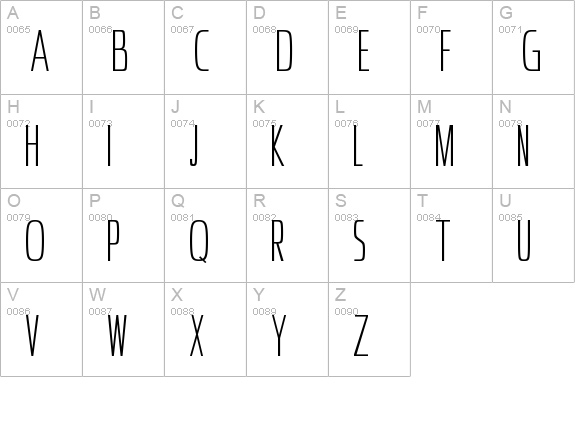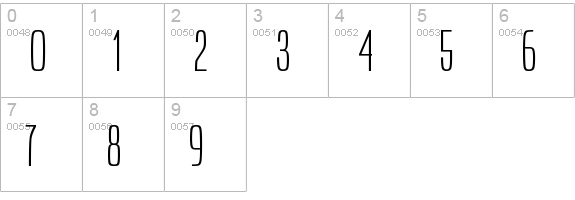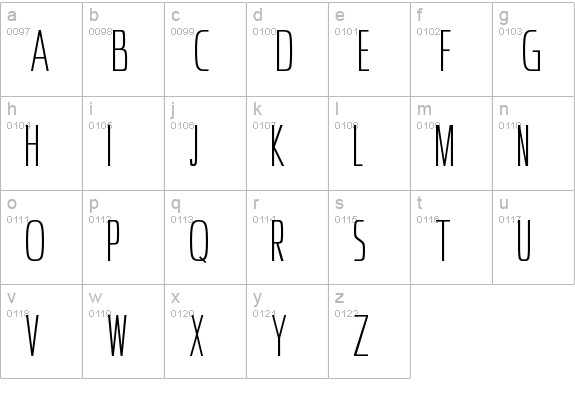
Ultrathins Font Details
Ultrathins is a donationware font in the General > Sans-Serif category, designed by Darrell Flood. It has been downloaded 232 times and is available for Windows, Mac and Linux.
Ultrathins font is a sleek and modern typeface that effortlessly combines elegance with a minimalist aesthetic. With its ultra-thin strokes and clean lines, this font is perfect for conveying a sense of sophistication and refinement in your designs. Whether you are working on branding, editorial projects, or any other creative endeavor, Ultrathins font is sure to make a bold statement.